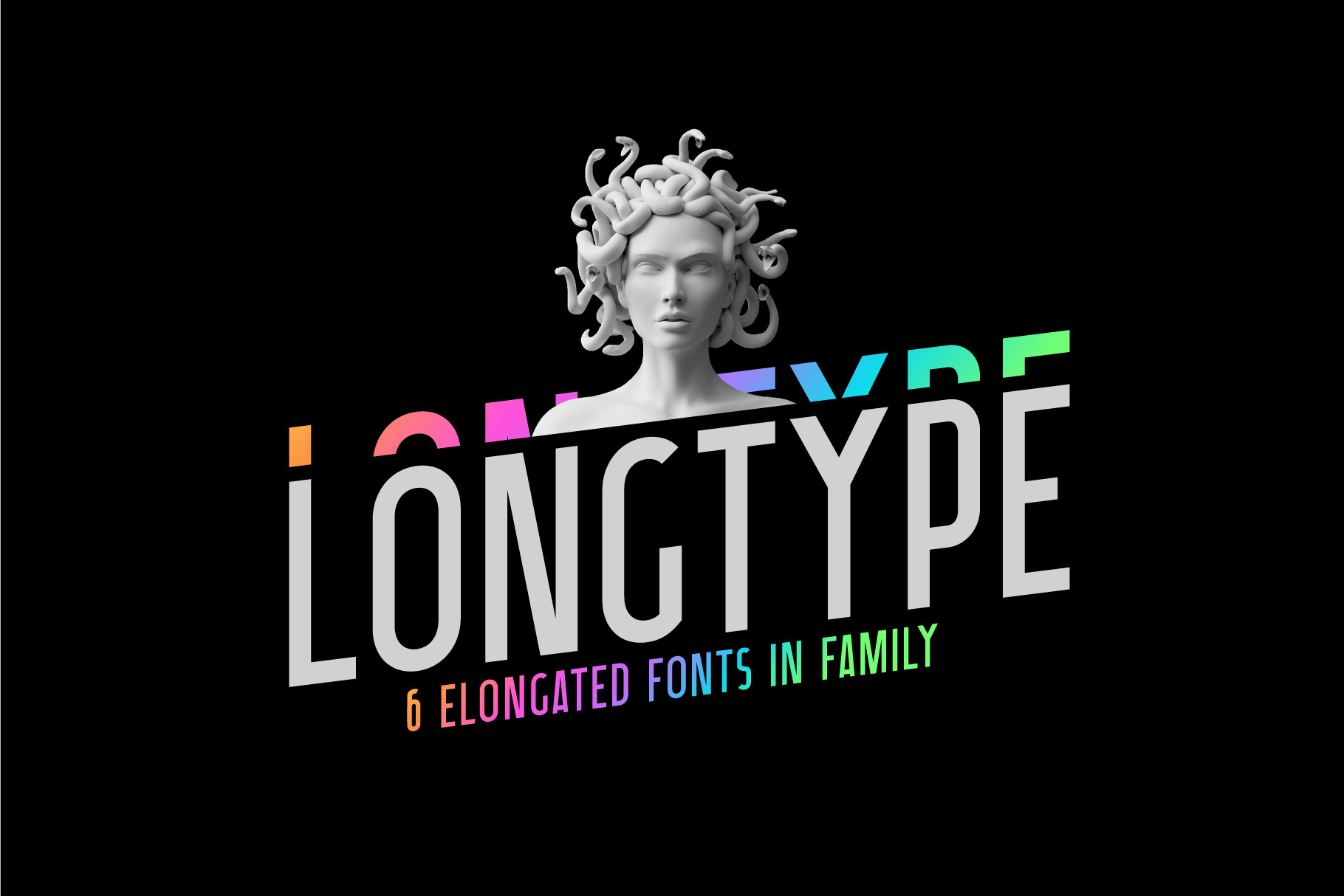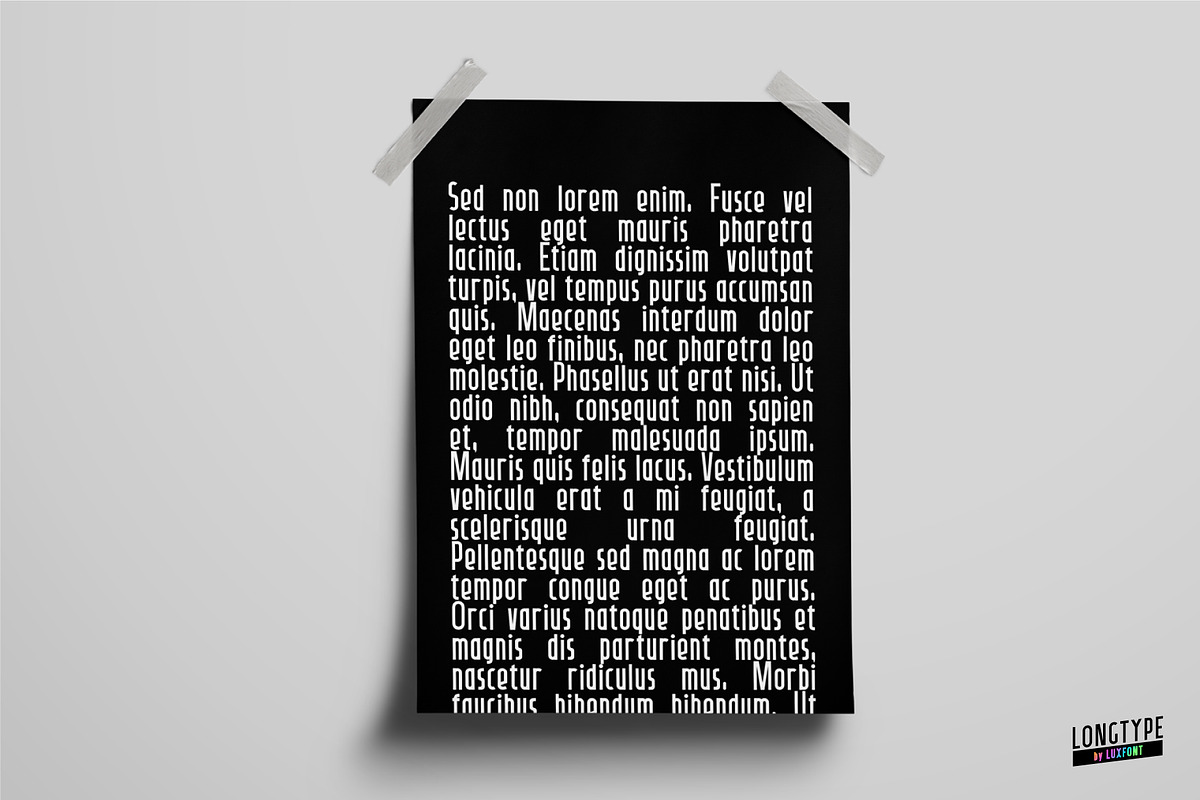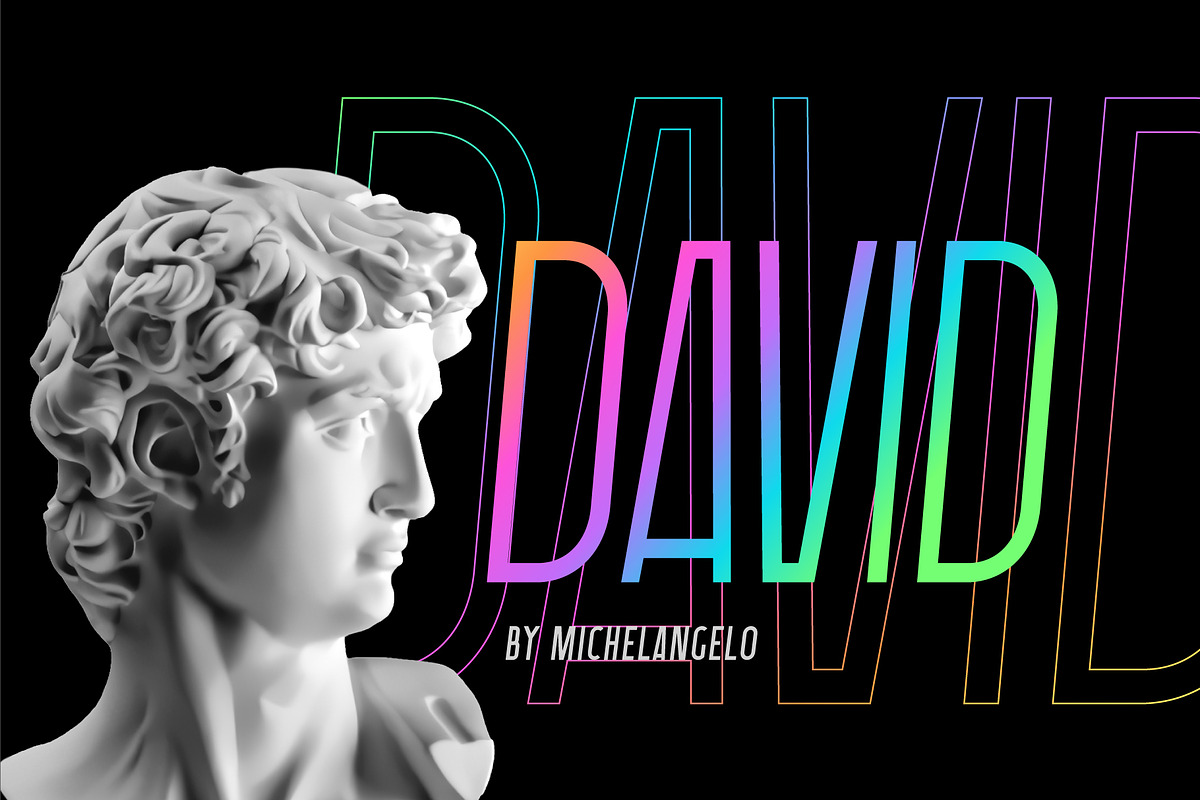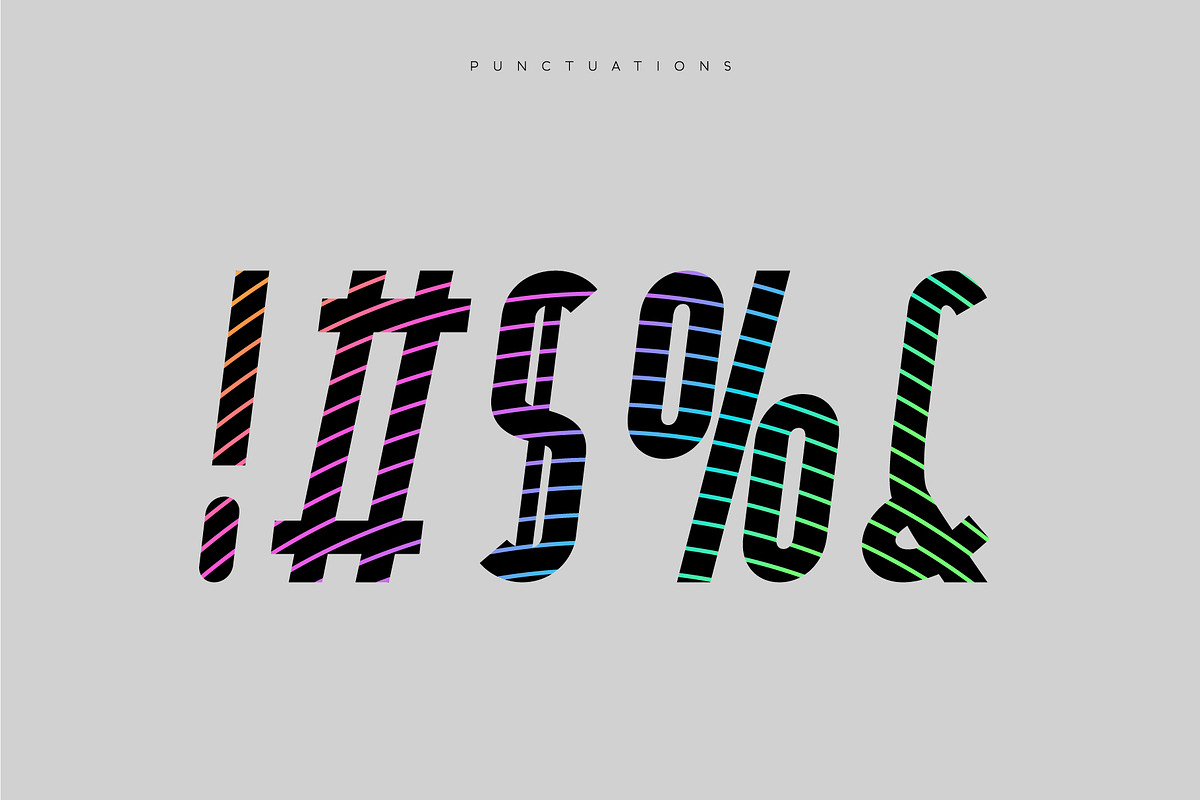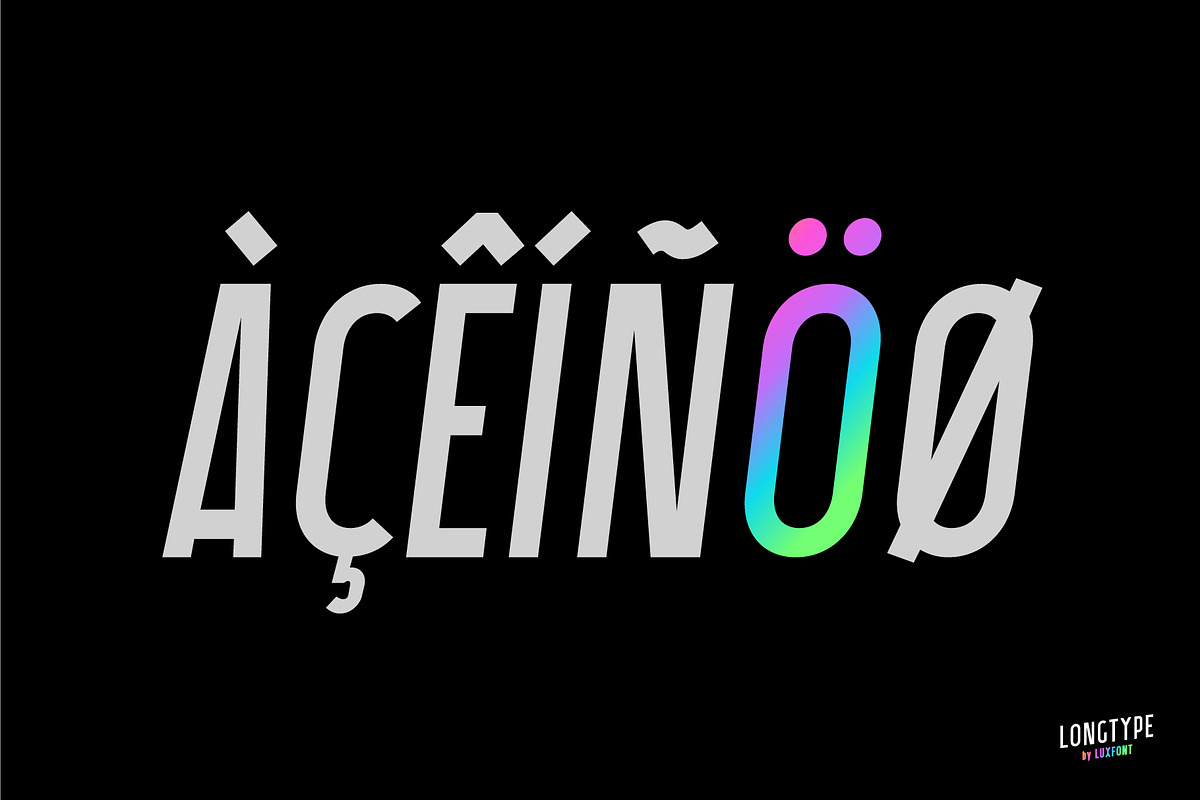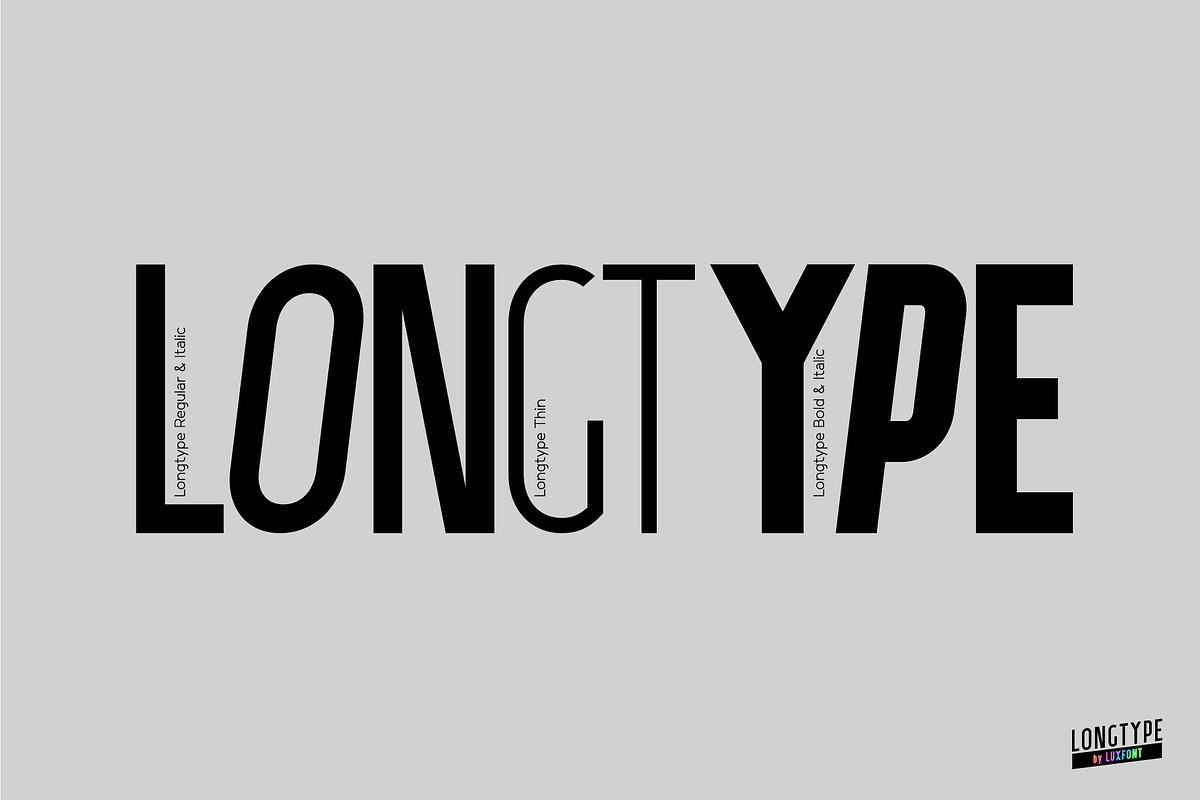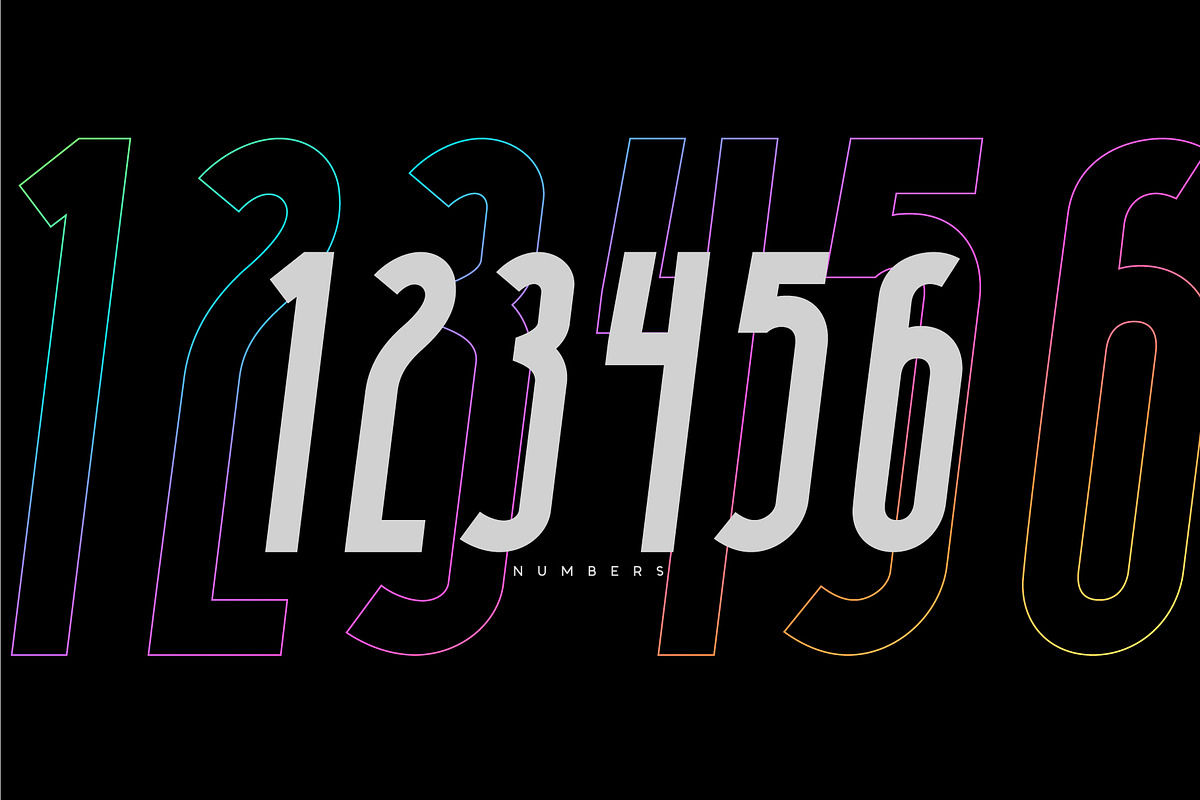
Longtype. Sans Serif font family.
Introducing original Longtype font family. Elongated in height and fully balanced in width. This font looks unusual and evokes a flight of imagination. Typeface in combination with the simplest graphic design techniques instantly turns into a modern object that attracts attention. Use it in short texts or headlines, add some color to enhance the effect. Fits well with modern minimal abstract design. Longtype is a stand-alone typeface that can be the centerpiece of a cover. And 3 types of thickness included in the family will give more freedom for creativity.
- Elongated form
- 6 fonts in family:
- Thin, Thin Italic
- Regular, Italic
- Bold, Bold Italic
- Kerning